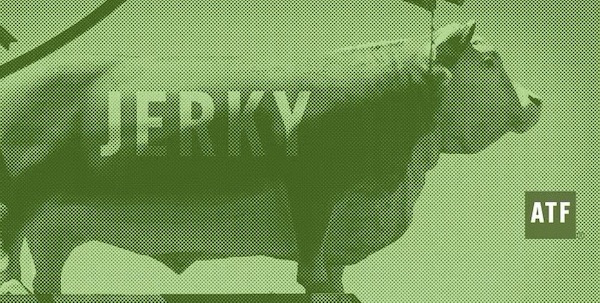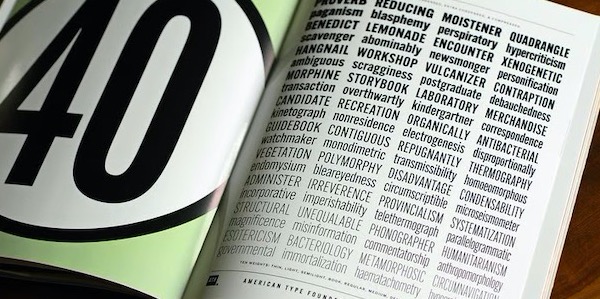
ATF Alternate Gothic is a modern and neat sans serif font family that was designed by Morris Fuller Benton, Mark van Bronkhorst, Alan Dague-Greene, Igino Marini, Ben Kiel, David Sudweeks and published by ATF Collection. ATF Alternate Gothic contains 40 styles and family package options. More about this family
ATF Alternate Gothic is a new, significant digital expansion of Morris Fuller Benton’s classic 1903 type design. Originally available in one bold weight, the metal typeface came in three slightly different widths for flexibility in copy-fitting layouts. ATF Alternate Gothic has an impact of any size. Its letterforms are instantly familiar: Benton’s original metal type family was used throughout the 20th century in newspapers, magazines, and advertising, providing a “strong and effective display” in a compact space. Monotype issued its own metal version for machine typesetting, and Alternate Gothic likely served as inspiration for Linotype’s ubiquitous Trade Gothic® Bold and Bold Condensed.
ATF Alternate Gothic expands on the characteristics that perhaps made Trade Gothic so popular, providing a wider range of weights and widths to address the needs of today’s designers and technologies. The space-saving clarity of ATF Alternate Gothic brings readability to the world of advertising typefaces. With its finely graded range of ten weights, with four widths of each weight (40 fonts total), this extensive type family can be used to pack a lot into a narrow space, and the range makes it easy to create variations of an advertisement or announcement for different formats and media.
The tall x-height and narrow proportions, combined with a relatively low waist and springy, tension-filled forms, make ATF Alternate Gothic strong and effective in the display. All ten weights have been carefully spaced for readability, caps and lowercase work well together, while attention-grabbing all-caps settings are clear and never crowded, no matter how narrow.